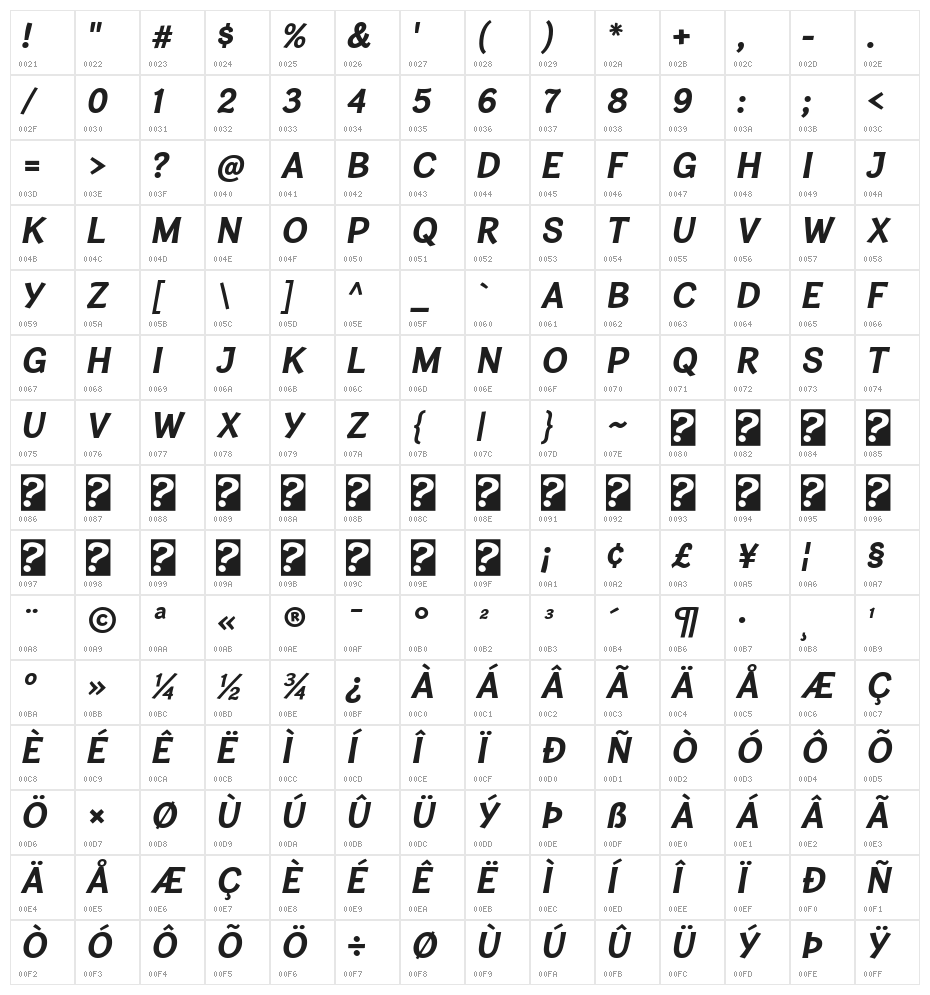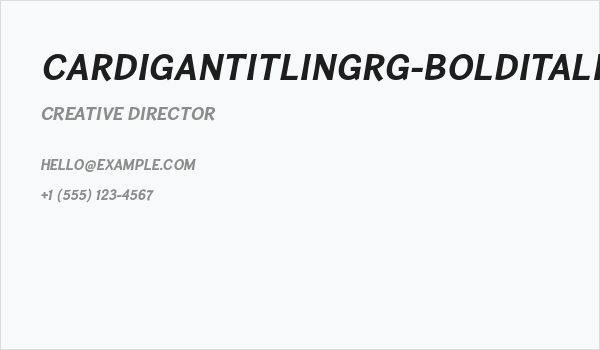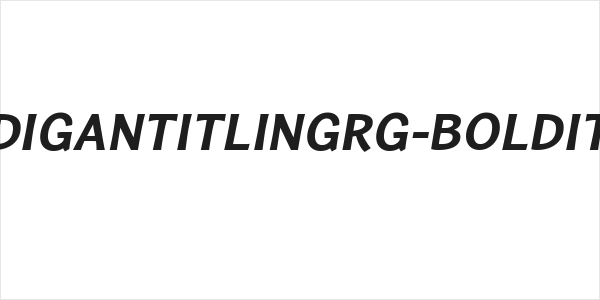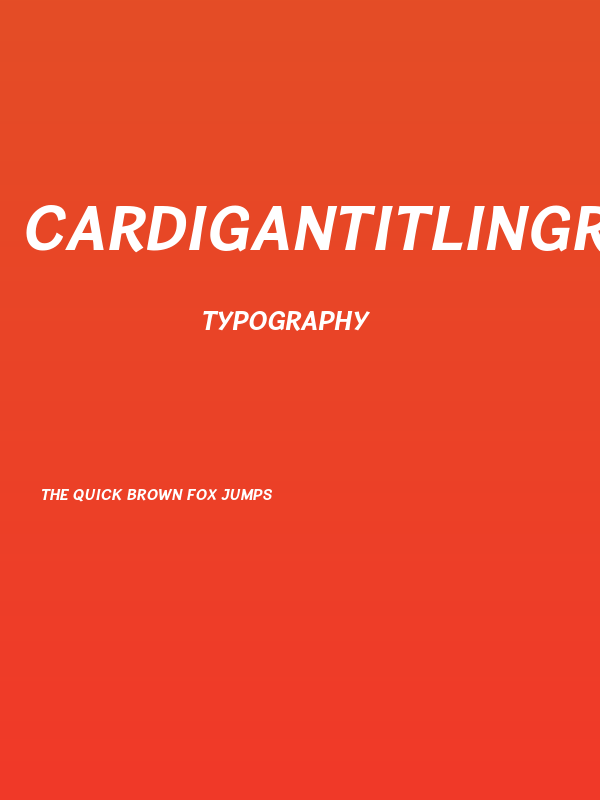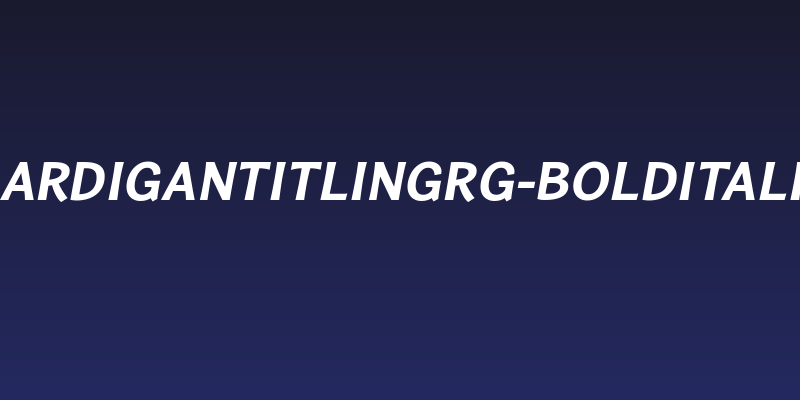
CardiganTitlingRg-BoldItalic Font
CardiganTitlingRg-BoldItalic Description
This font features a bold and italic style, offering a dynamic and assertive appearance. The characters are slightly slanted, adding a sense of movement and energy. The strokes are thick and consistent, providing a strong visual impact. The uppercase and lowercase letters maintain a uniform width, ensuring readability. The numerals are clear and distinct, matching the boldness of the alphabetic characters. Special characters are well-defined, making them suitable for various design needs. Overall, this font combines modern aesthetics with a classic bold italic flair, making it versatile for multiple applications.
| Proposed Projects | Ideal for headlines, branding, advertising, and editorial design where a strong presence is needed. |